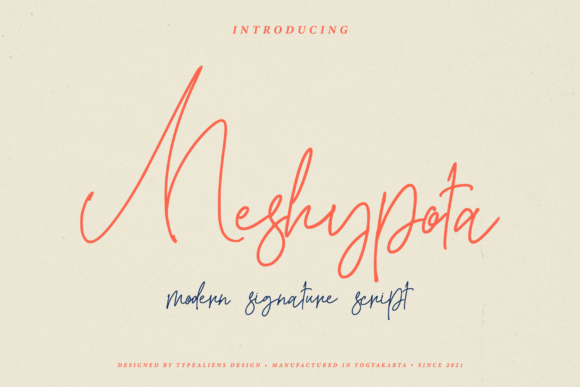
Meshypota Font
Meshypota is a thin lettered and stylish script font. It has a classy, elegant and modern look that can be used for logos, branding, invitations, stationery, wedding designs, social media posts, and much more!